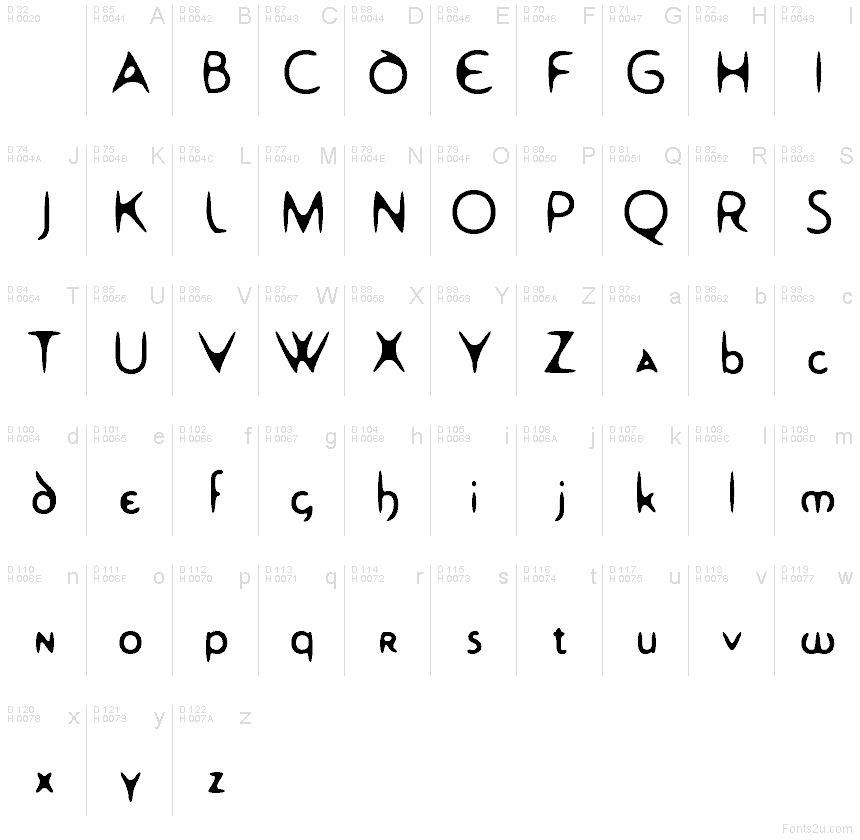
CS Spears Drawn font by Craft Supply Co. is a free hand‑drawn font from the CS Spears family. It stands out with pebble‑rounded strokes, scooped counters, and gently worn edges that feel ink‑rubbed rather than sandblasted. The rhythm is loose but readable, with quirky angles (peek at that spearhead vibe in its angles) that add character without shouting.
This free font shines on indie brand logos, craft packaging, festival posters, game titles, zines, cafe boards, and sticker sets. Using CS Spears Drawn, set headlines big and give it a touch of extra tracking to keep those inky counters breathing. Pair with a clean, light geometric sans for body text to let the texture do the talking.